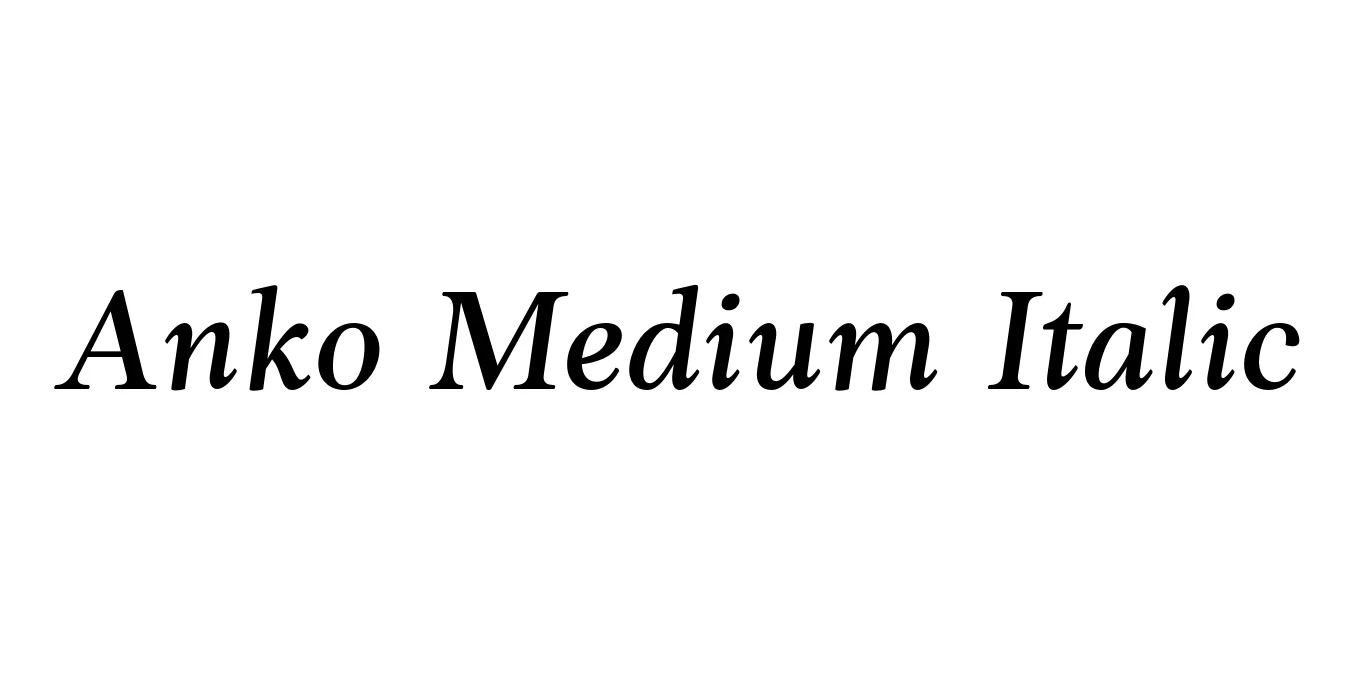
Anko Medium Italic
Designed by Ramandhani Nugraha
Anko Medium Italic is a sophisticated serif typeface that blends classical humanist characteristics with modern clarity. Designed by Ramandhani Nugraha, this font family stands out for its balanced proportions, subtle contrast, and organic flow. The italic variant introduces a graceful slant that enhances readability while adding a touch of calligraphic elegance, making it an excellent choice for emphasizing text in long-form prose or sophisticated branding projects.
Released under the Rama Fonts foundry, Anko was crafted to bridge the gap between traditional old-style serifs and contemporary digital requirements. Its versatile nature allows it to perform exceptionally well in both print and digital environments. Whether used for literary layouts, high-end editorial magazines, or corporate identity systems, the Medium Italic weight provides a perfect equilibrium between decorative flair and functional legibility.
Anko Medium Italic Best Uses
Perfect for magazines, book interiors, and literary works.
Ideal for luxury labels, logos, and high-end corporate identities.
Excellent for body text emphasis and sophisticated subheadings.